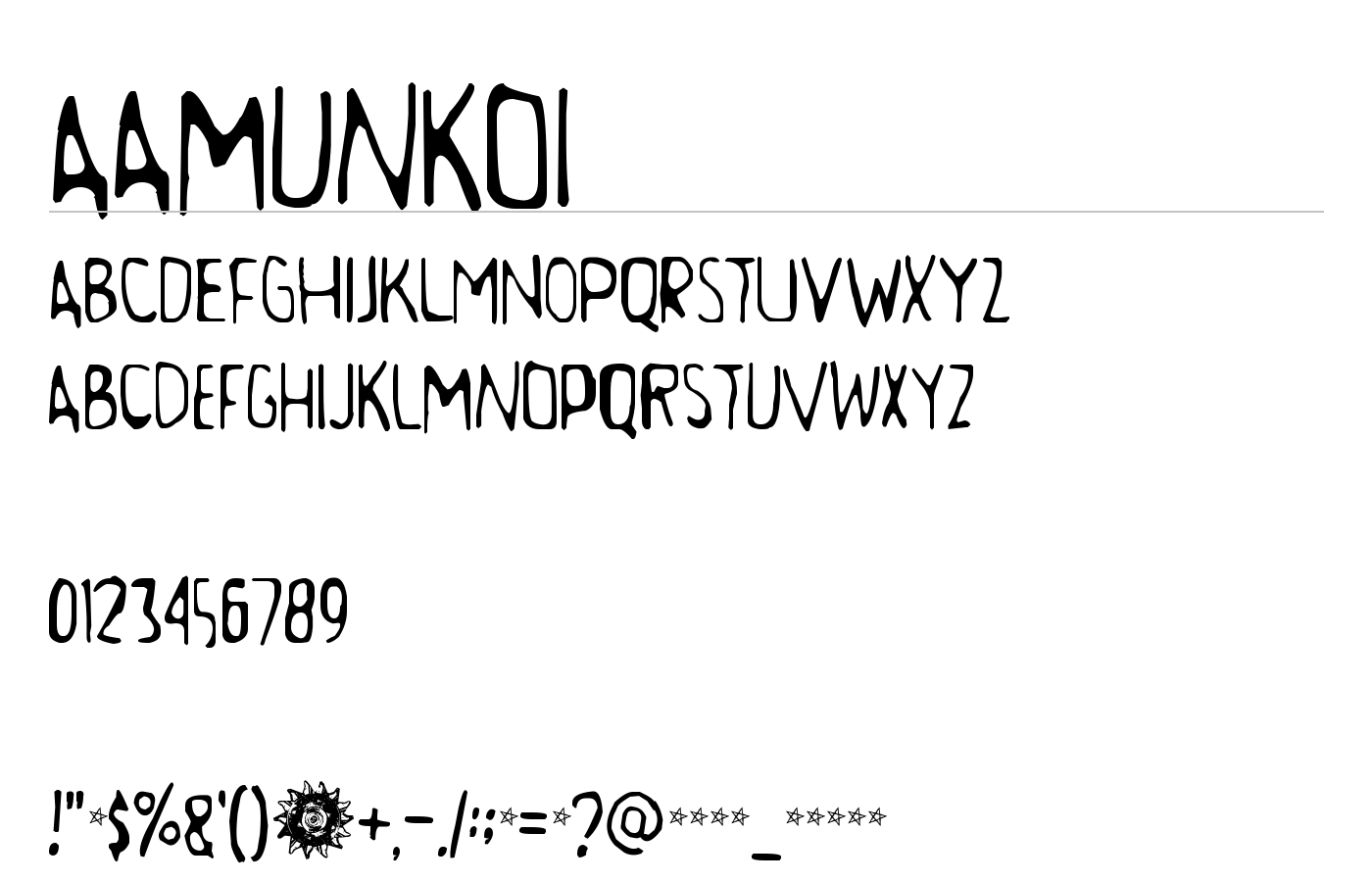
Aamunkoi is a quirky, hand-drawn sans serif font with an uneven, organic rhythm that gives it a playful and creative feel. Its tall, narrow letterforms with slight irregularities and minimal stroke contrast make it ideal for projects that want to convey a casual, artistic, or whimsical vibe. This font works best for headlines, logos, and designs that seek a unique, informal touch rather than rigid formality.
Aamunkoi Font
About Aamunkoi Font
| Font family | Aamunkoi Font |